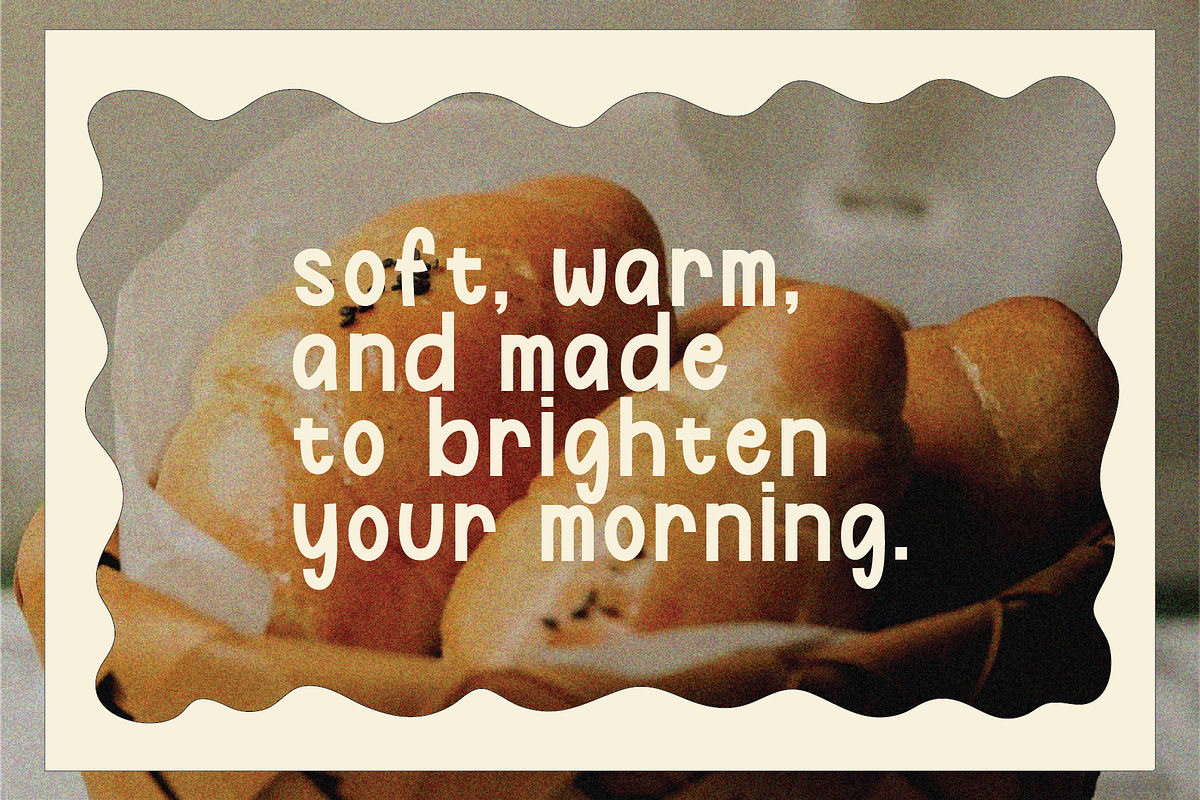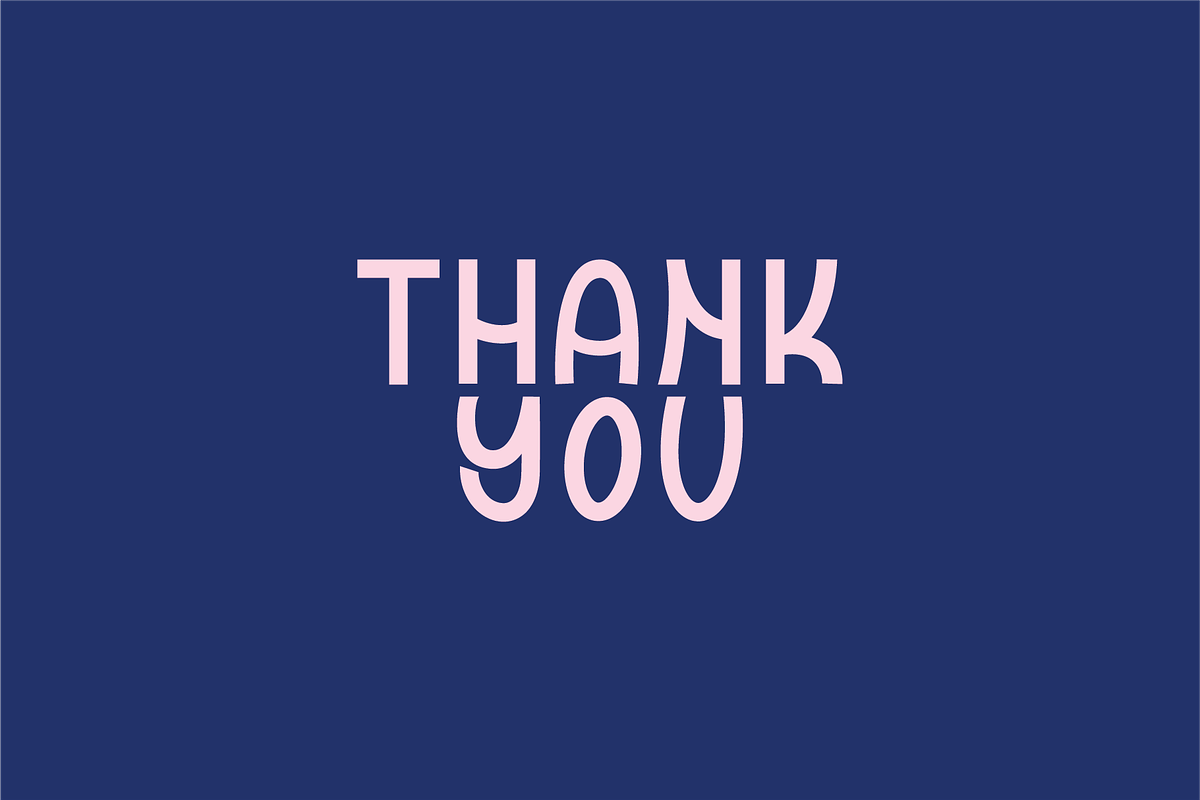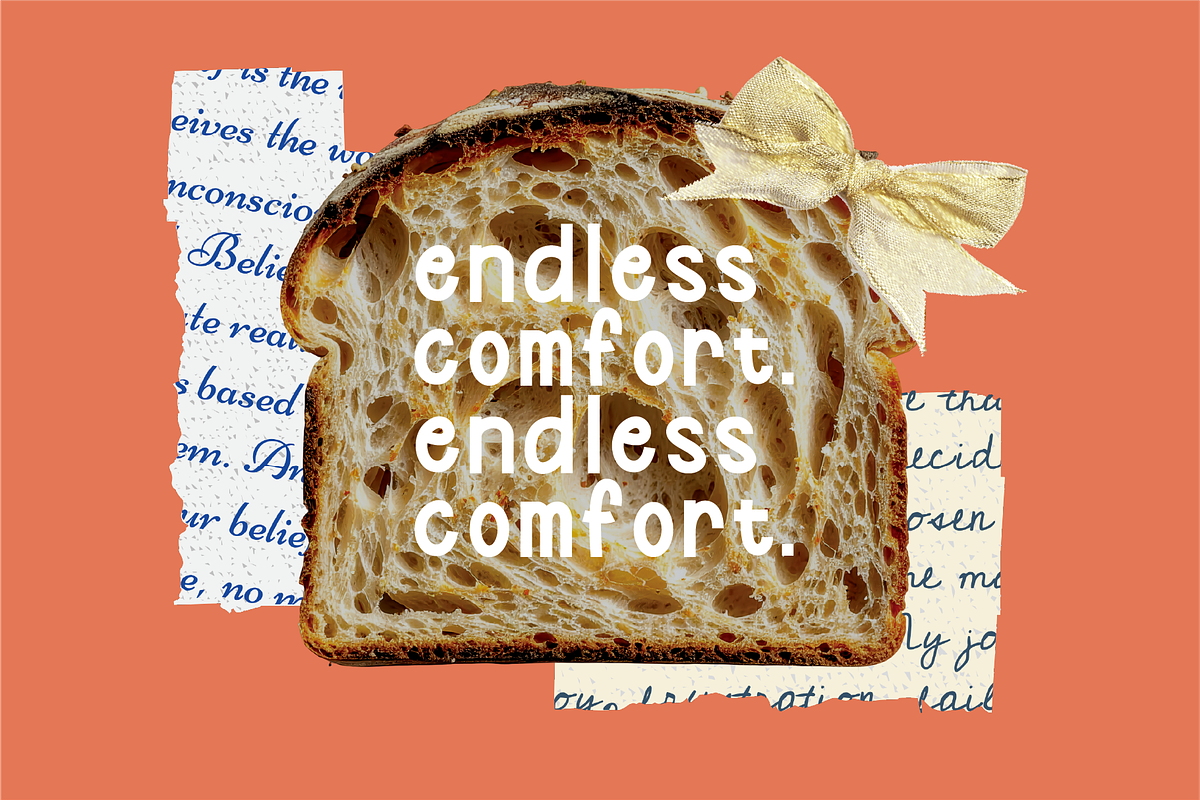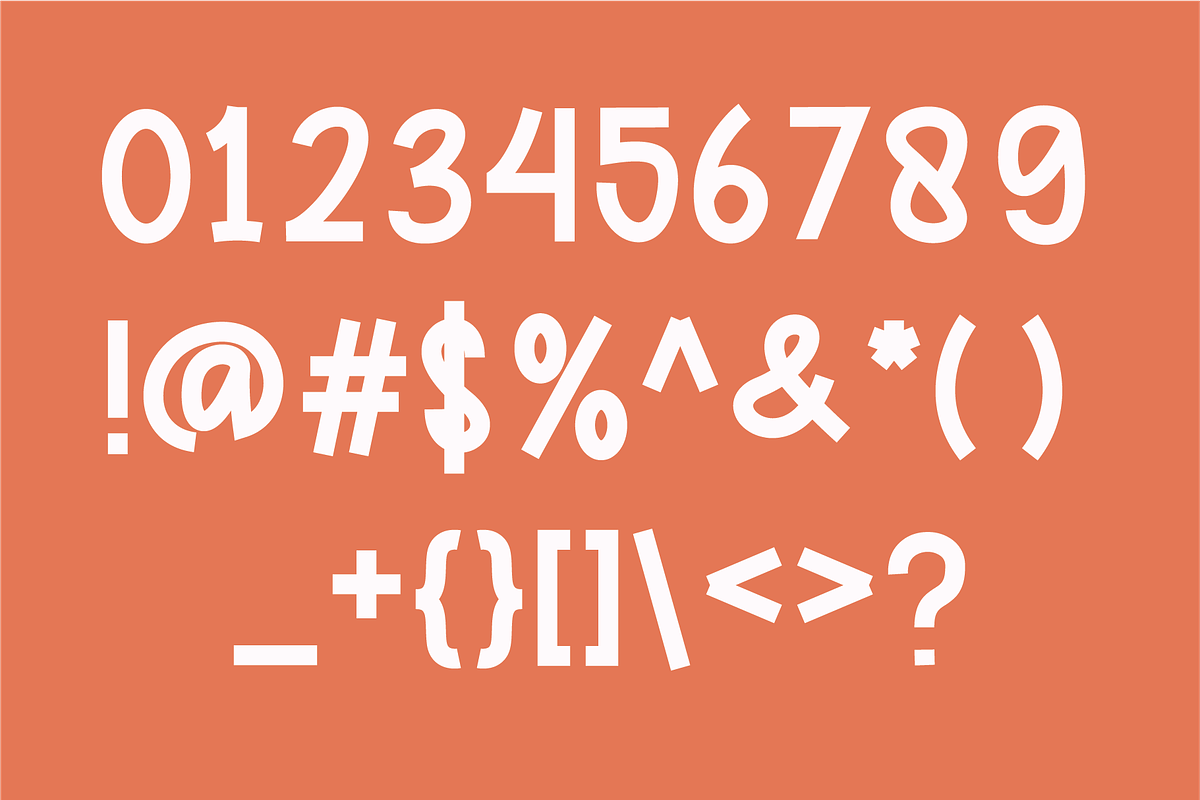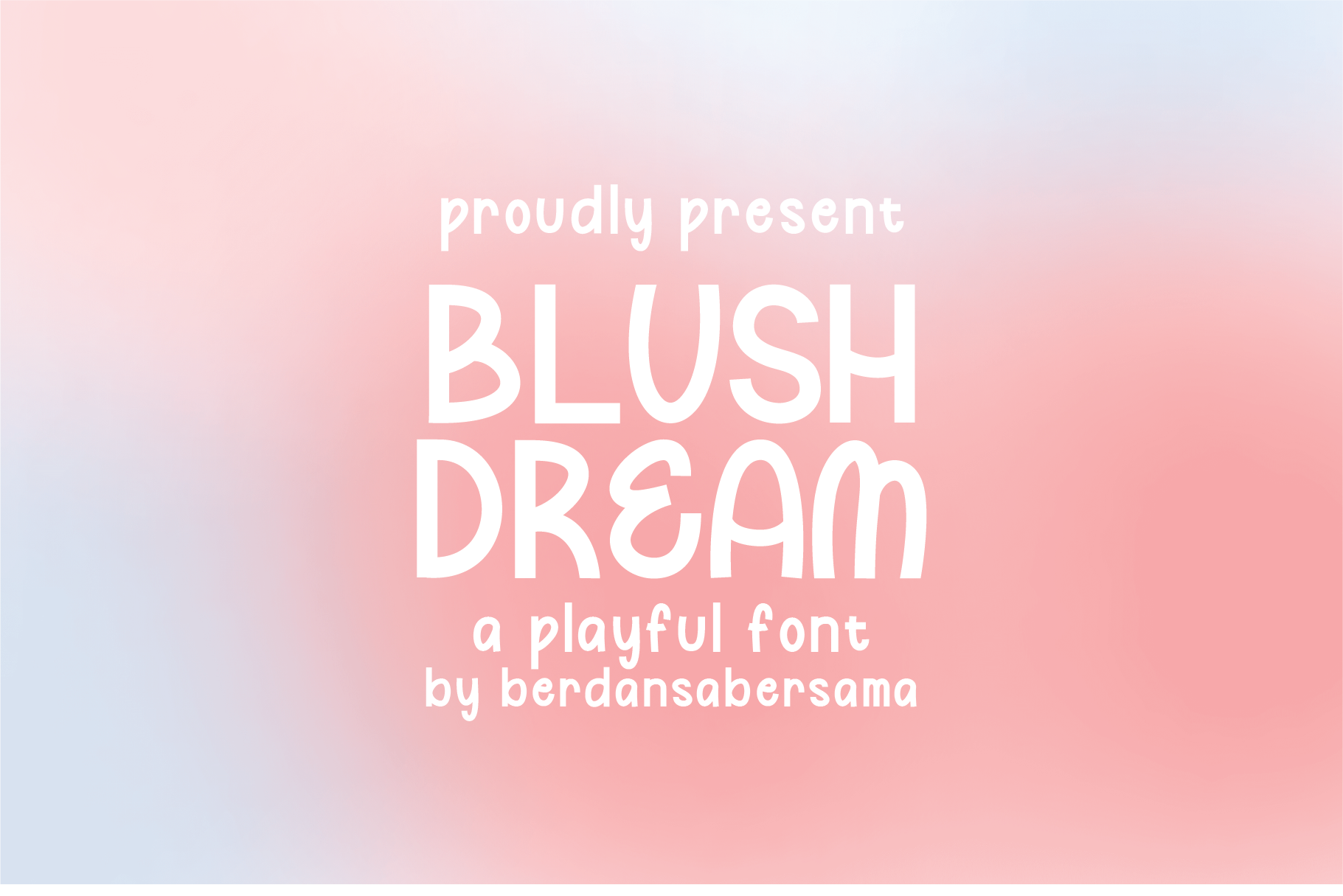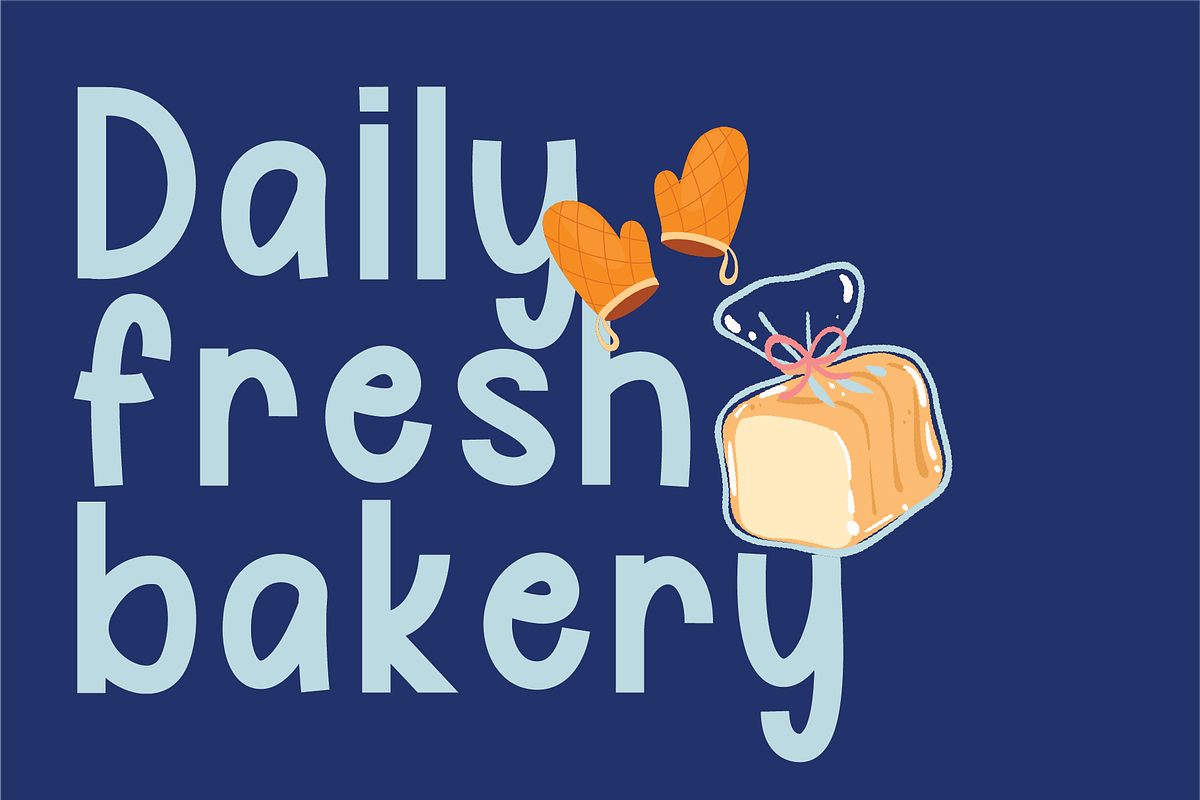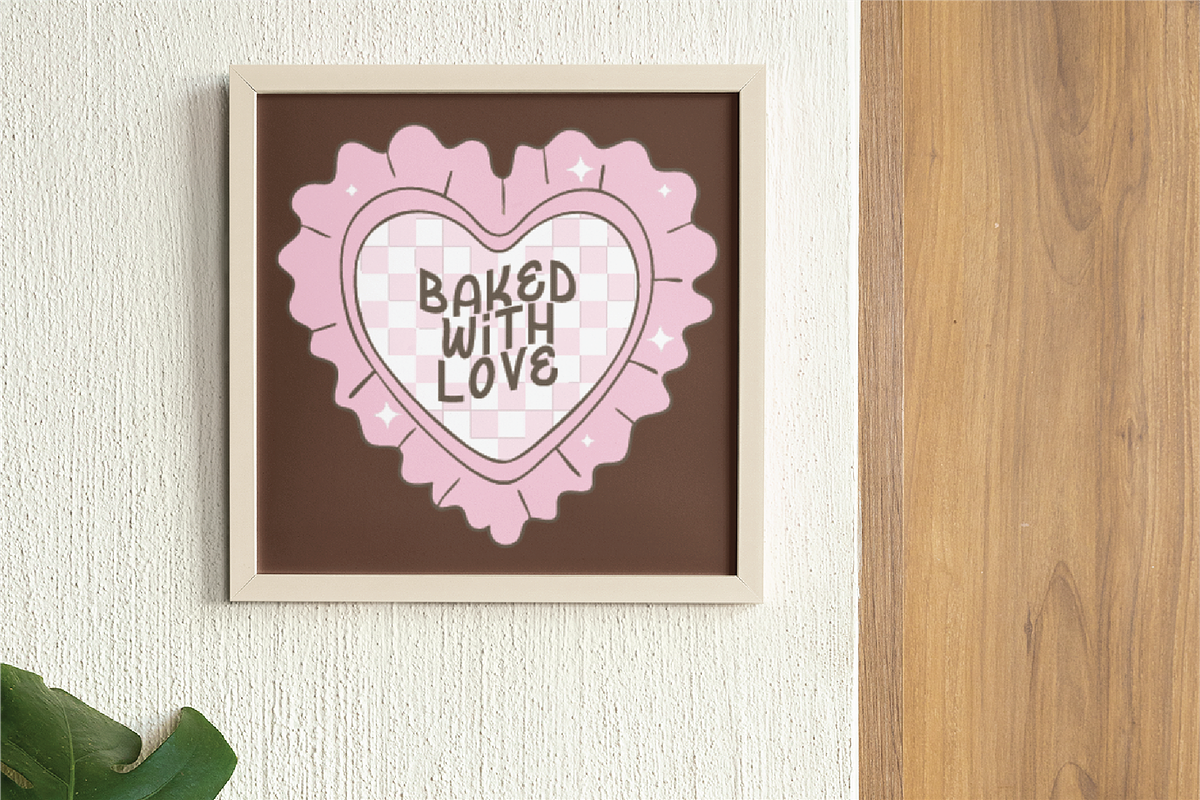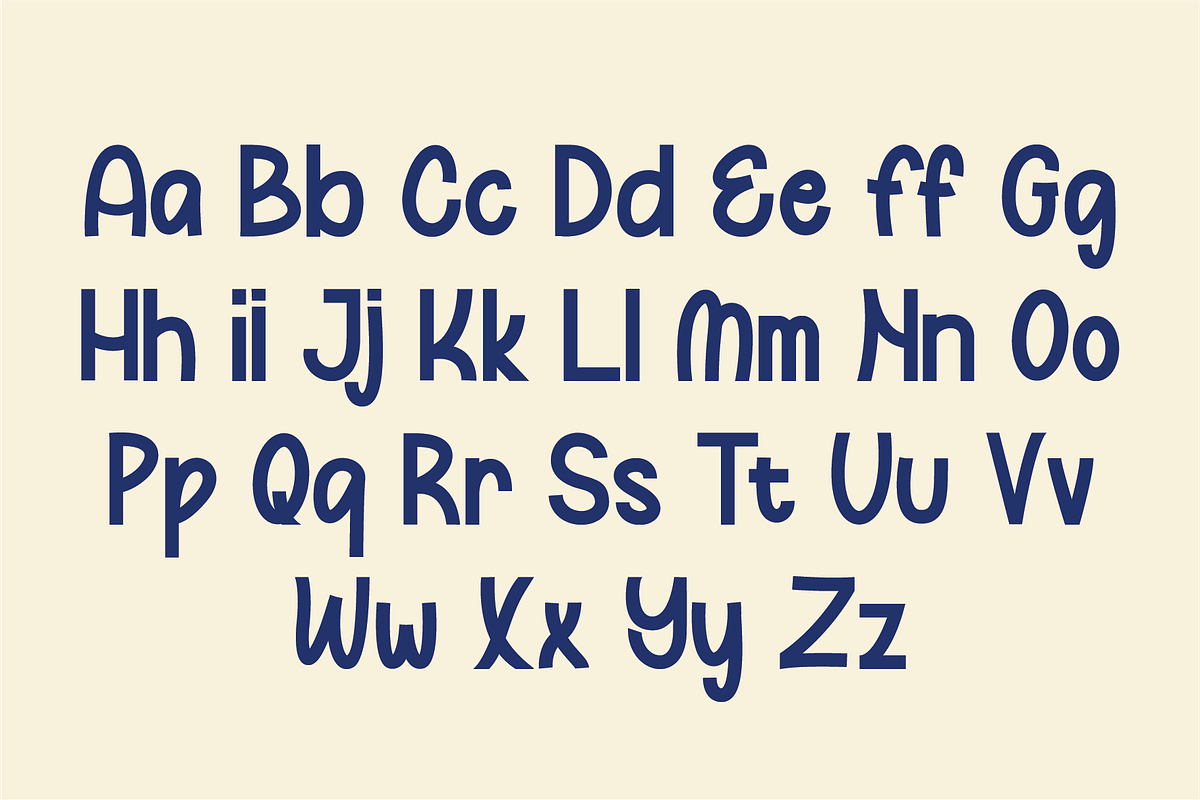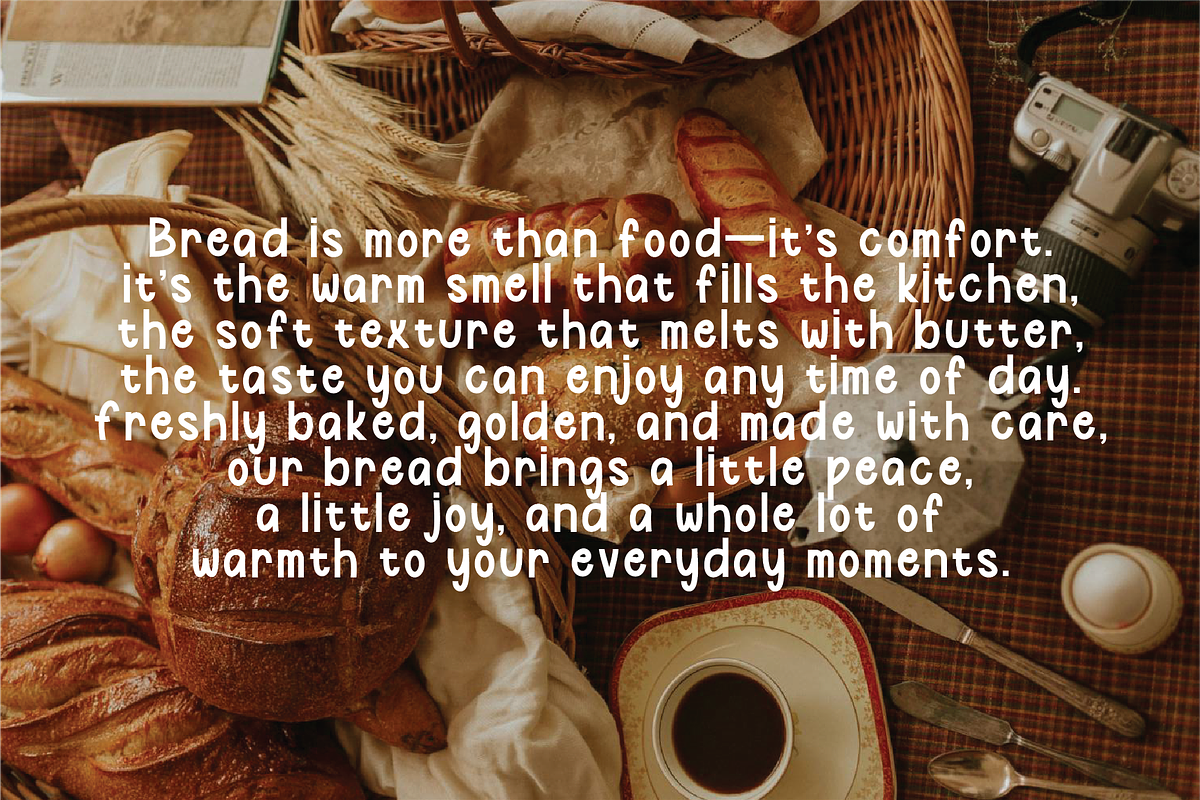
Blushdream Playful Font
Blushdream is a soft, playful display font with smooth curves and a gentle handwritten charm. Its rounded edges and simple shapes create a warm, friendly, and dreamy aesthetic, making it perfect for designs that want to feel cute, cozy, and uplifting.
- Numbers, marks and symbols